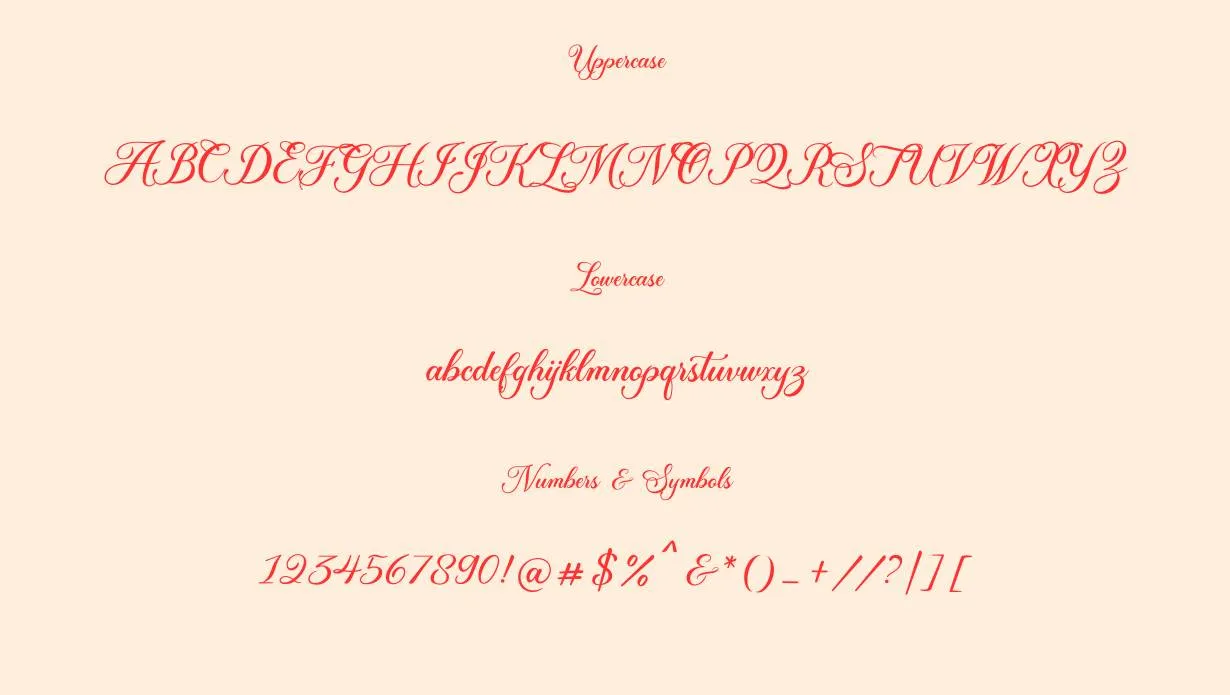
Madina Font, with its elegant and romantic design, is a graceful script typeface ideal for wedding invitations, love-themed branding, and designs that want to convey warmth and affection. Discover the beauty of this font and bring the perfect touch of charm to your projects.
Madina Font Family
This font’s cursive style and delicate strokes create a feeling of romance and charm in your projects.